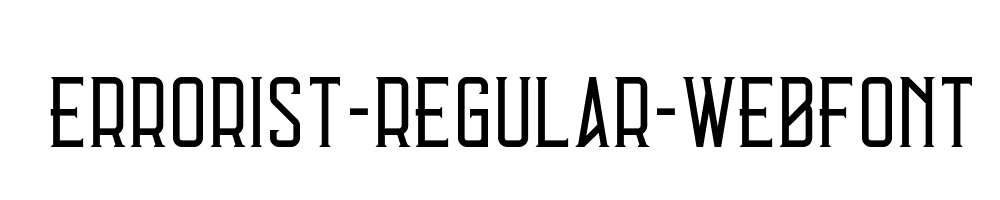
About errorist-regular-webfont
The font “errorist-regular-webfont” exudes a neutral expressiveness with its clean lines and simple structure, giving it a familiar yet daring edge. The open counters and sharp apexes contrast with the smooth arcs and rounded bowls, creating a harmonious blend of elegance and ruggedness. The bilateral serifs add a touch of classic sophistication, while the subtle spurs and terminals offer a hint of warmth and friendliness. The font’s stems are sturdy and well-defined, with a slight hairline providing a delicate touch. The overall design exudes a serious yet approachable vibe, making it perfect for a wide range of design projects.
The font “errorist-regular-webfont” features a balance of classic and progressive elements, with a hint of technical precision and organic flow. Its strong shoulders and sturdy stems give it a solid, reliable feel, while the playful loops and overhangs add a touch of whimsy. The apexes and arcs are carefully crafted, striking a perfect balance between elegance and ruggedness. The font’s spines and joints are well-defined, adding to its overall sophistication. The serif details are subtle yet striking, with just the right amount of flair to catch the eye. In terms of expressiveness, the font falls somewhere between loud and discreet, making it a versatile choice for a variety of design applications.